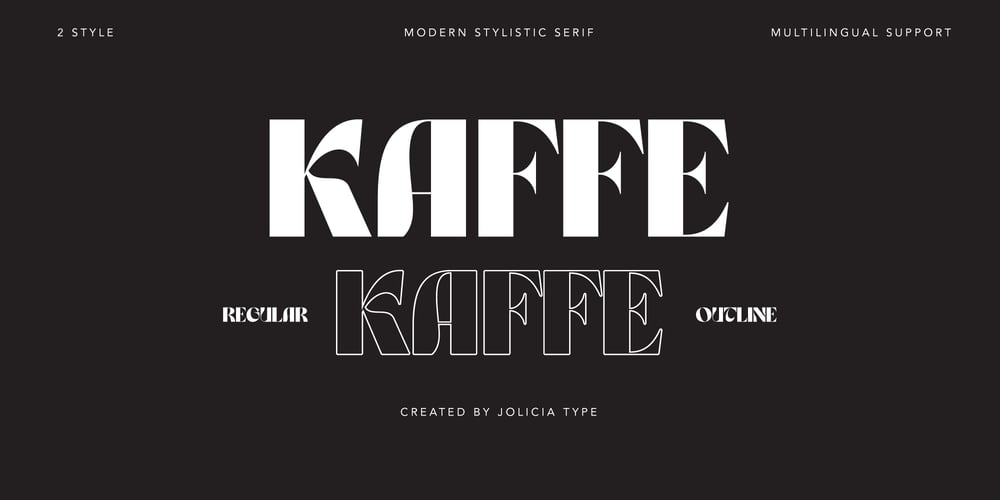
Kaffe Font Family was designed by Laire Banyu, Dyaharum Pungki Revitasari and published by Jolicia Type. Kaffe contains 2 styles and family package options. Kaffe is a display typeface inspired by the retro and psychedelic typefaces out. with a bold style and we provide a combination outline style that fits both of them to make it look very trendy and more standout..easy to use for branding, logo, digital marketing, and any more.Features : Uppercase & Lowercase Outline Number Multilingual Support Punctuation